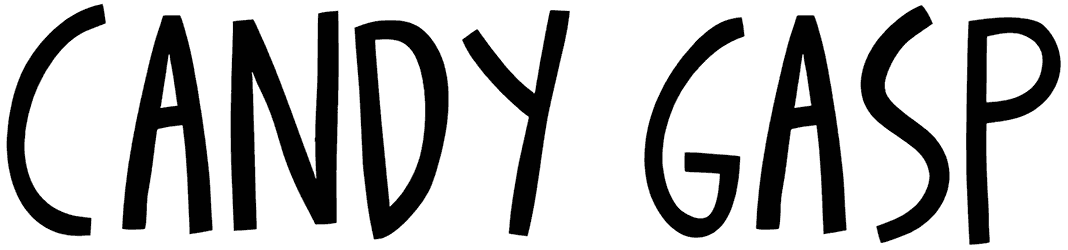
Free Holiday is a fun and fluid font that works for anything that needs a playful bold font. You can use this handwritten font for your more casual projects that need a confident sound to enhance them wonderfully.
So, if you need a playful font for your informal and childish branding that stands out with a mixture of lowercase and uppercase letters, design your poster, packaging, headlines, and website with Free Holiday.